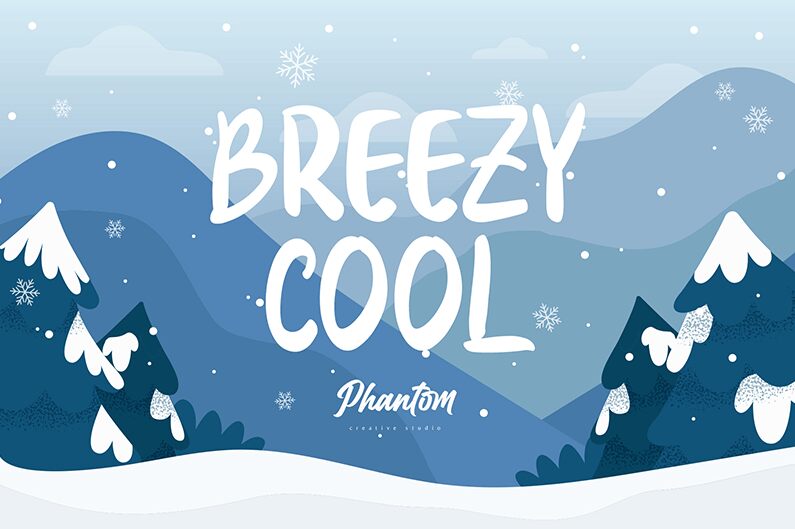
Breezy Cool is a narrow handwritten script font designed by Muhammad Hisyam Rivai. It's perfect for adding a stylish, personal touch to invitations, posters, logos, and other creative projects.
Breezy Cool